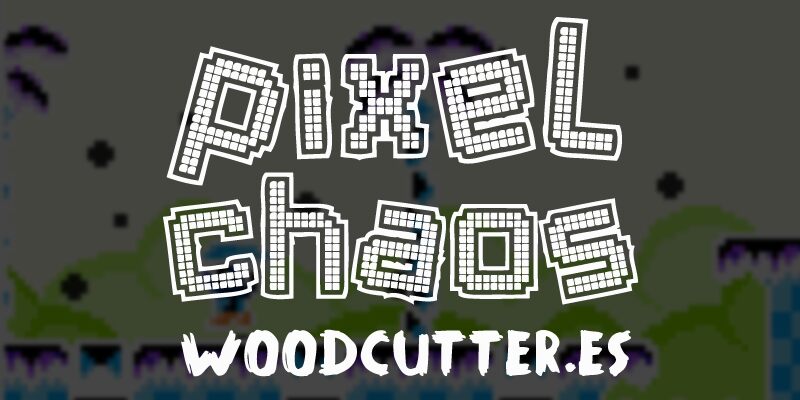
Pixel Chaos
Pixel Chaos, a brainchild of the innovative Woodcutter Manero, stands as a testament to the fusion of digital artistry and typographic design. This display font embodies the essence of techno style with its semi-bold weight and semi-expanded width, offering an aesthetic that is both striking and unorthodox. Its pixelated form exudes a retro vibe yet feels at home in contemporary design landscapes.
With each character meticulously crafted to appear as though it's emerging from a screen of an old arcade game, Pixel Chaos is imbued with a sense of dynamic energy. The font's aesthetic appeal lies in its structured disarray, making it an ideal choice for projects that aim to grab attention and convey a theme of digital disruption or creativity.
Pixel Chaos shines in various applications ranging from gaming interfaces and tech event promotions to eye-catching logos and edgy editorial headings. Its unique characteristics ensure that any text set in this typeface becomes instantly memorable, enhancing the visual storytelling aspect of any creative endeavor. With Pixel Chaos, designers are empowered to make bold statements that resonate within the digitally-savvy culture.